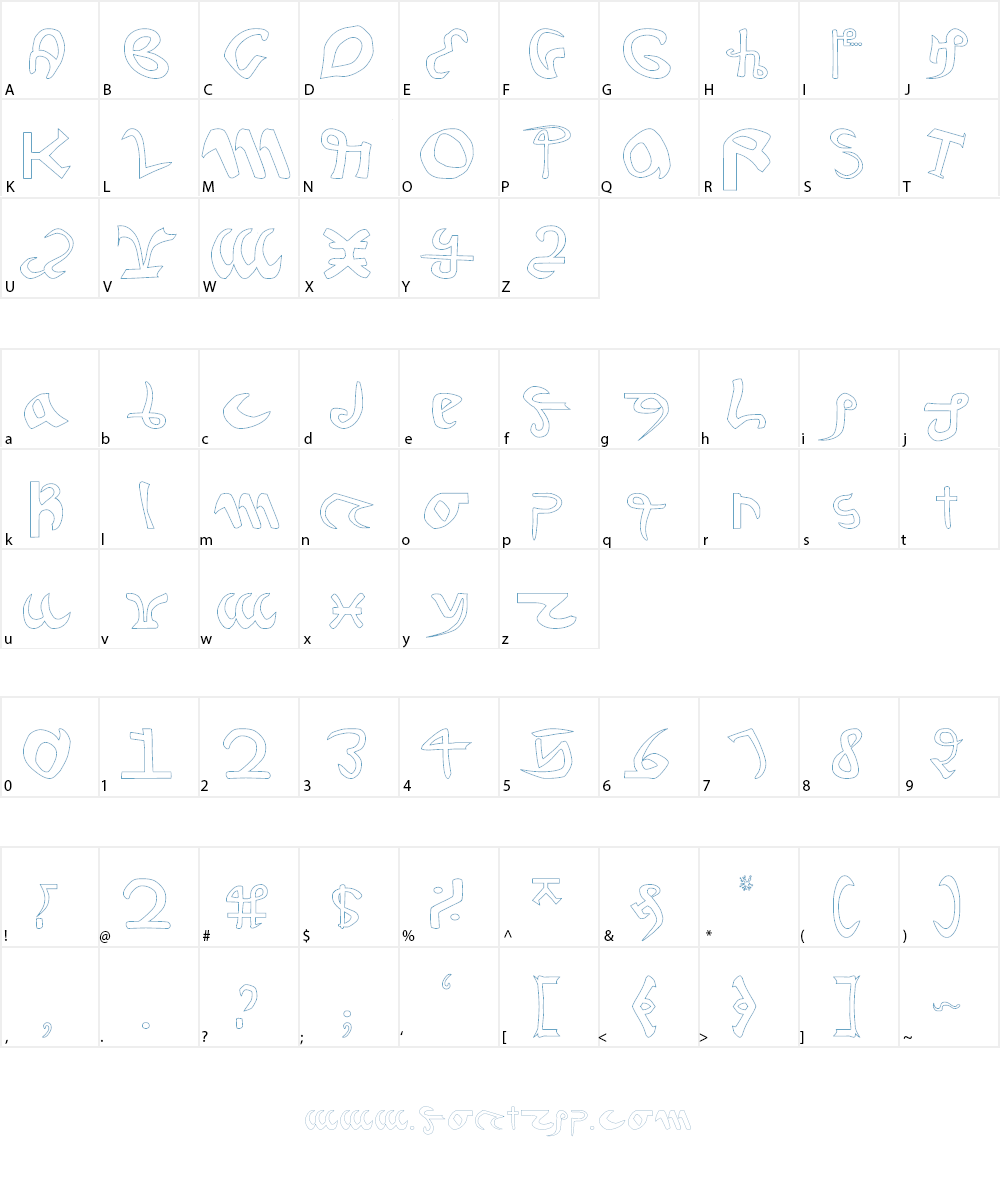
Voynich is an eerie, alien font based on the mysterious tome known as the Voynich manuscript (http://en.wikipedia.org/wiki/Voynich_manuscript). Please be aware that this is merely a decorative font that uses the glyphs of the Voynich manuscript to approximate the Latin alphabet and is not meant to be an attempt to transcribe the actual manuscript. For more information on this, please see the Wikipedia articles at: http://en.wikipedia.org/wiki/Voynich_manuscript http://en.wikipedia.org/wiki/European_Voynich_Alphabet Special thanks must go to René Zandbergen and Gabriel Landini for their creation of the European Voynich Alphabet (EVA) transcription system. A copy of a font based on the actual EVA transcription may be found at http://www.geocities.com/ctesibos/francais/voynich/outils/evah1_1.zip